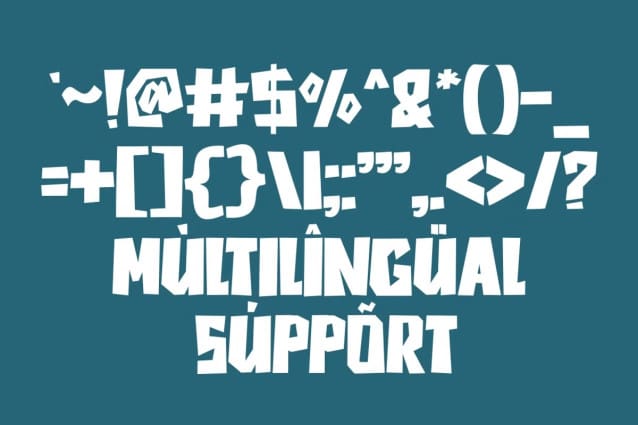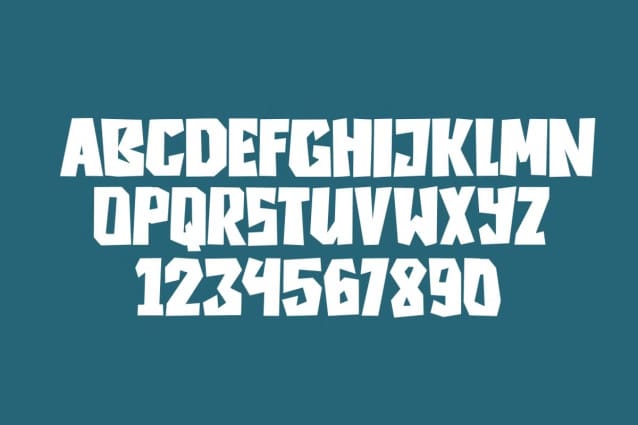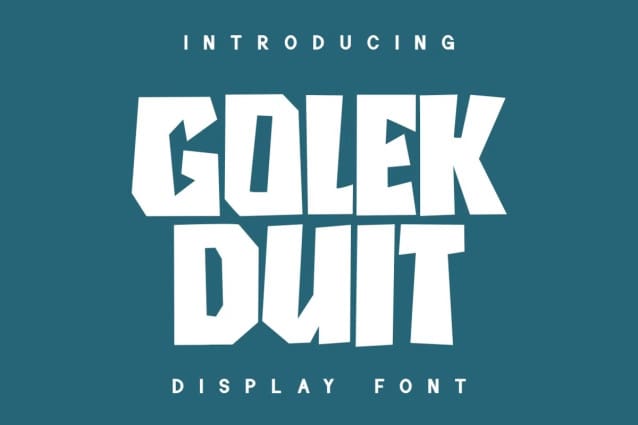
Golek Duit Font
Golek Duit Font is a chunky, comic, and cartoon display font. With its neat and joyful personality, this font will enhance any project you wish to create!